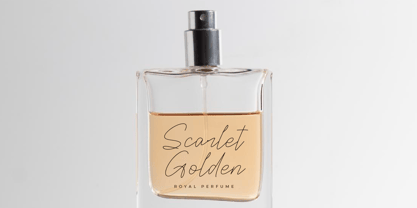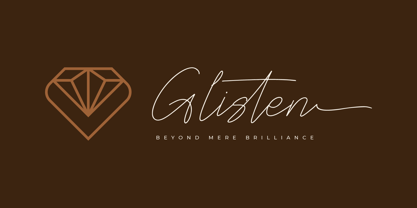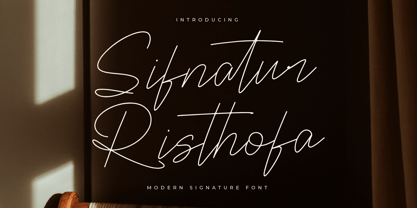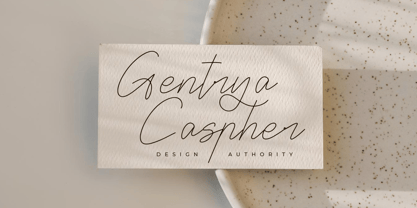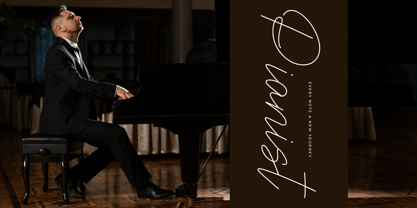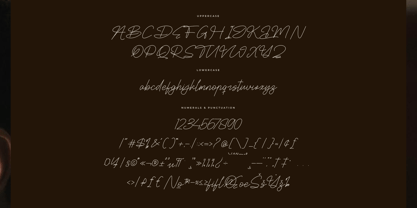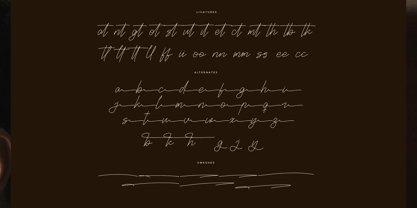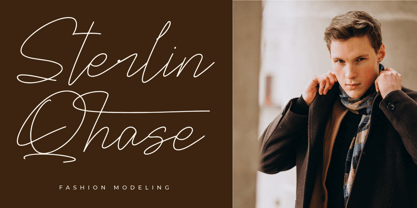
Sifnatur Risthofa
by Letterena Studios
The Sifnatur Risthofa Font Family was designed by Heru Utama Putra and published by Letterena Studios. Sifnatur Risthofa contains 2 styles and family package options. More about this family
Sifnatur Risthofa – Modern Signature Font , from Letterena, is a Luxury Script font, suitable for any projects such as: logos, branding projects, homeware designs, product packaging, mugs, quotes, posters, shopping bags, t-shirts, book covers, name card, invitation cards, greeting cards, label, photography, watermark, special events, and all your other luxury and beautiful projects that need a Luxury Script taste.